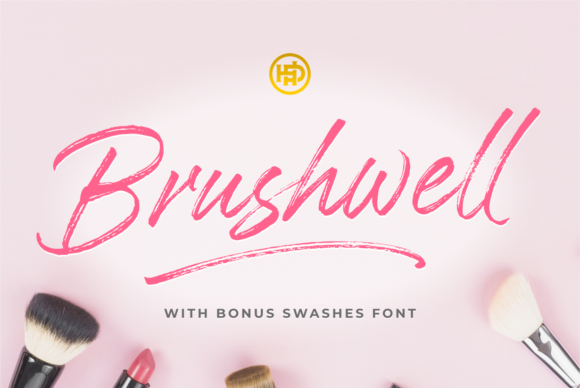
Unleashing Creativity with the Brushwell Font
You know that moment when you’re brainstorming ideas for a design project, and you need a spark to get your creative juices flowing? For many designers, it’s about finding the perfect font to bring their vision to life. And that’s where the Brushwell Font comes in – a dynamic and playful script with a brushed look that’s sure to add a splash of authenticity to any design project.
With the Brushwell Font, you can infuse your designs with a sense of personality and whimsy. Whether you’re working on a logo, a brochure, or a social media campaign, this font is sure to elevate your work and make it stand out from the crowd. As a designer, you know how valuable it is to have a reliable go-to font that can help you achieve your creative goals.
Brushwell Font Key Features
- Font Family: Brushwell Font offers a range of font styles, including Regular, Italic, Bold, and Bold Italic.
- Unique Characteristic: Brushwell Font features a unique blend of modern and vintage elements, giving it a distinctive aesthetic appeal.
Brushwell Font Review
Brushwell Font has been an interesting addition to my design toolkit. Overall, I’d say it’s a solid choice for creative projects.
- Brushwell Font’s unique blend of modern and vintage elements gives it a distinct charm that can elevate any design.
- The font’s versatility allows it to be used in a wide range of applications, from headings to body text.
- Brushwell Font’s readability is excellent, making it suitable for long-form content.
- The font’s high-quality rendering ensures it looks great on both digital and print media.
- Brushwell Font may not be the best choice for very formal or professional projects, as its vintage vibe can feel a bit too playful.
- The font’s bold weight can feel a bit too loud, so use it sparingly to avoid overwhelming the viewer.
Overall, Brushwell Font is a great choice for designers looking to add some personality to their projects. While it may not be the best fit for every project, its unique charm and versatility make it a valuable addition to any design library.
Tips for Getting the Most Out of Brushwell Font
For the best results, use Brushwell Font in conjunction with bold lines and vibrant colors.
Experiment with different font sizes and styles to add visual interest to your designs.
Alternatives to Brushwell Font for Designers
Great Vibes is a beautiful script font that is perfect for creating a friendly and approachable atmosphere. It’s great for use in headings, quotes, and other text elements where you want to add a touch of elegance and sophistication. Compared to Brushwell Font, Great Vibes has a more fluid and organic feel, making it ideal for designers who want to create a sense of movement and energy in their designs.
Cobble
Cobble is a distressed script font that adds a touch of ruggedness and grit to your designs. It’s perfect for use in titles, headings, and other text elements where you want to create a sense of nostalgia and vintage charm. Compared to Brushwell Font, Cobble has a more rough-around-the-edges feel, making it ideal for designers who want to add a touch of industrial chic to their designs.
What is the recommended line height for Brushwell Font?
The recommended line height for Brushwell Font is 1.2 to 1.5 times the font size. This line height range provides a comfortable reading experience and allows the text to breathe. However, line height can be adjusted based on the specific design requirements and target audience.